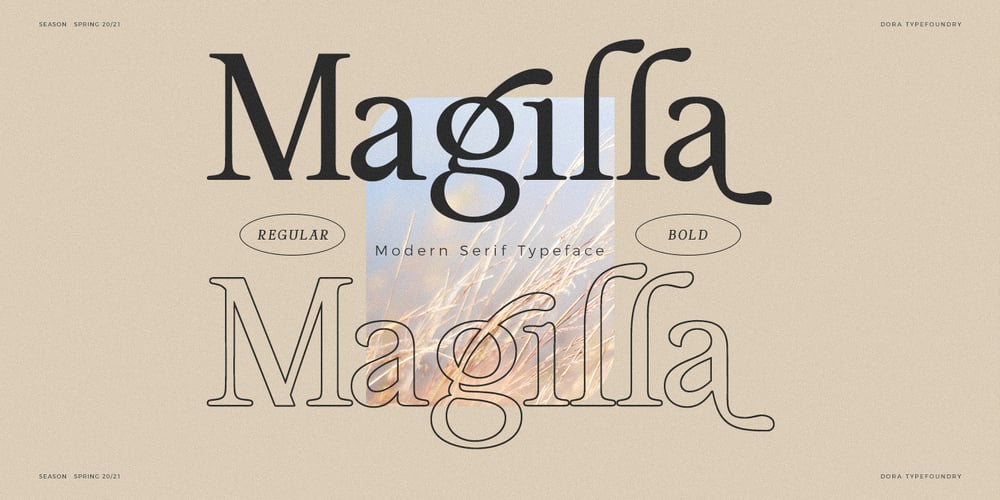
Magilla Font Family was designed by Zahratul Laila and published by Dora Typefoundry. Magilla contains 6 styles and family package options. Magilla is a new elegant serif font that will add a touch of luxury and style to your projects. This is a very versatile font that works well in large and small sizes. Perfect for editorial projects, magazine headers, Logo designs, Clothing Branding, product packaging, and showcasing masculine and feminine qualities.Magilla is equipped with uppercase, lowercase, numbers and full punctuation + Multi language support and PUA-encode.A SUMMARY OF WHAT’S INCLUDED: Magilla Regular Magilla Bold Magilla Outline To activate the OpenType Stylistic alternative, you need a program that supports OpenType features such as Adobe Illustrator CS, Adobe Indesign & CorelDraw X6-X7, Microsoft Word 2010 or a later version.Features: 3 Font weight Uppercase & Lowercase letters Alternative & Ligature Styles Numbers & Punctuation Characters with accents Supports Multiple Languages This type of family has become a work of true love, making it as easy and enjoyable as possible.I really hope you enjoy it!I can’t wait to see what you do with Magilla! Feel free to use the #Dora Typefoundry tag and # Magilla Serif font to show what you’ve done.